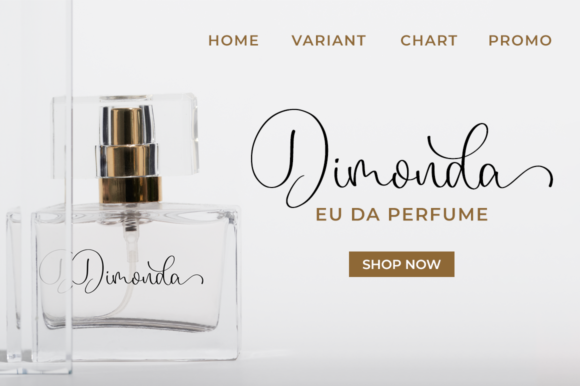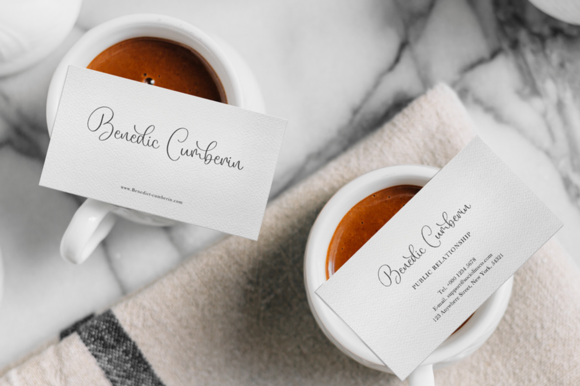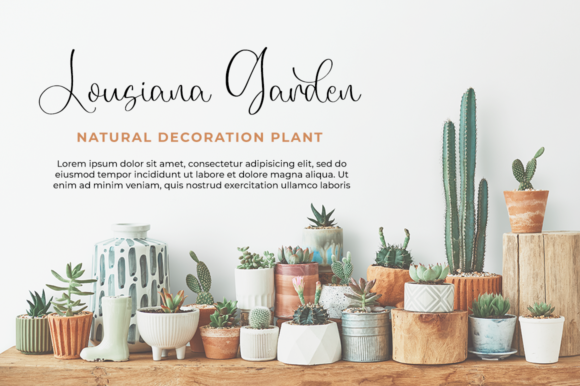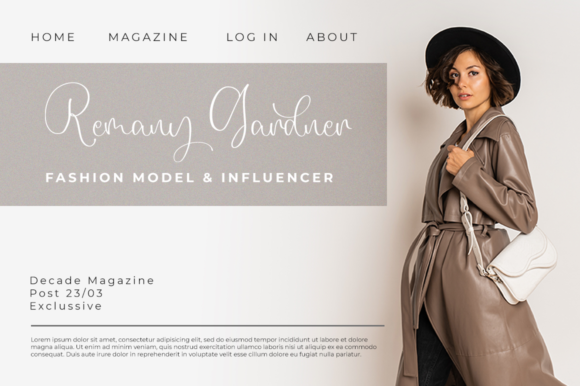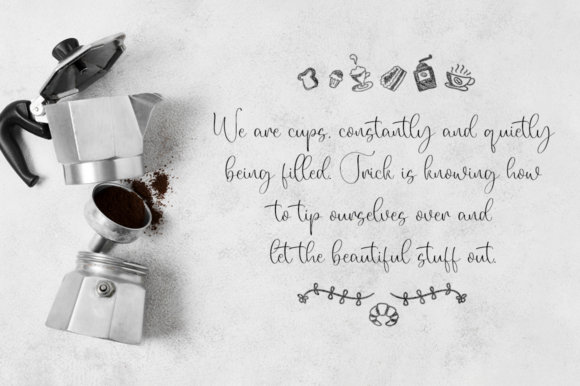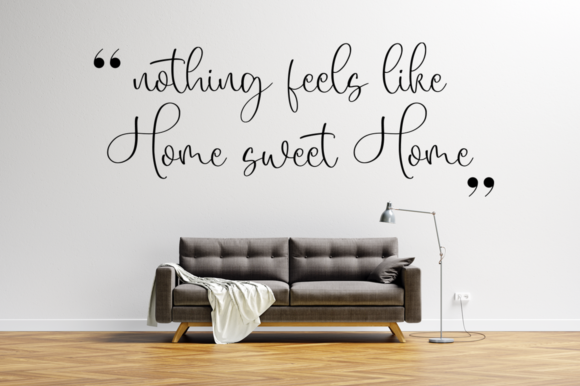
The Perfect Font for a Touch of Elegance
As a designer, there’s nothing quite like that moment when a font clicks and the entire project comes together. It’s a feeling that’s hard to describe, but it’s a mix of excitement, relief, and a dash of pride. You’ve poured your heart and soul into the design, and the right font is the final piece of the puzzle that makes it all come alive.
Enter the Euphoria Font, a stunning handwritten font that’s designed to add a touch of elegance to any project. With its beautiful, flowing lines and customizable swashes, this font is perfect for creating unique and eye-catching designs. Whether you’re working on a wedding invitation, a business card, or a social media graphic, the Euphoria Font is sure to make your project stand out.
Euphoria Font Key Features
- Unique Characteristics: Euphoria Font is known for its bold, modern, and elegant design, making it perfect for titles, headings, and other display typography.
- Language Support: The font supports a wide range of languages, including Latin, Cyrillic, Greek, and many others, making it a versatile choice for international projects.
- Font Pairing: Euphoria Font is designed to be paired with a variety of other fonts, allowing for endless combinations and creative possibilities.
Euphoria Font Review
I recently had the chance to work with the Euphoria Font, and I must say it’s a unique and eye-catching addition to any design project. ✨ Here are a few things that stood out to me:
- High contrast and color saturation options make it perfect for creating bold and striking visuals.
- The font’s irregular, hand-drawn feel gives it a lot of character and makes it stand out from more traditional fonts.
- Euphoria works well for headings and titles, as its large x-height and irregularities make it easy to read from a distance.
- The font’s irregularities can sometimes make it difficult to read, especially in body text.
- The font doesn’t come with a lot of language support, which may limit its use in projects that require multiple languages.
- Some characters may not be as refined as others, which can affect the overall professionalism of your design.
Overall, I’d say the Euphoria Font is a great choice for designers who want to add some personality and flair to their projects. While it may not be suitable for every project, it’s definitely worth considering for anything that requires a bold and eye-catching look.
Tips for Getting the Most Out of the Euphoria Font
Use the Euphoria font to create a unique and eye-catching design.
Pair the font with other bold or playful fonts for a contrasting effect.
Use the font in headings and titles to draw attention.
The Euphoria font is ideal for:
Designing social media graphics and ads.
Creating eye-catching headlines and titles.
Adding a touch of playfulness to your branding and marketing materials.
Alternatives to Euphoria Font for Designers
Great Vibes Font is a modern, elegant script font perfect for creating a sophisticated and stylish look. It’s ideal for use in branding, advertising, and editorial designs where a touch of luxury is desired. Great Vibes Font is a more refined and polished alternative to Euphoria Font, making it suitable for high-end designs.
Comparison: Great Vibes Font is more polished and refined than Euphoria Font, with a more elegant and sophisticated feel. While Euphoria Font has a bolder and more playful vibe, Great Vibes Font is better suited for designs that require a touch of class and sophistication.
Carolyna Pro Font is a modern script font that’s perfect for creating a trendy and youthful look. It’s ideal for use in branding, social media, and digital designs where a bold and eye-catching font is desired. Carolyna Pro Font is a more energetic and playful alternative to Euphoria Font, making it suitable for designs that require a lot of energy and dynamism.